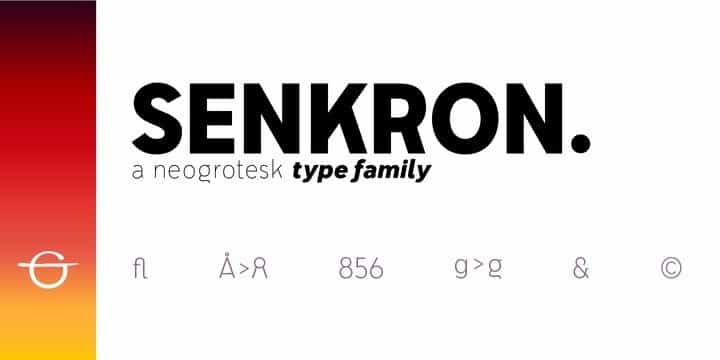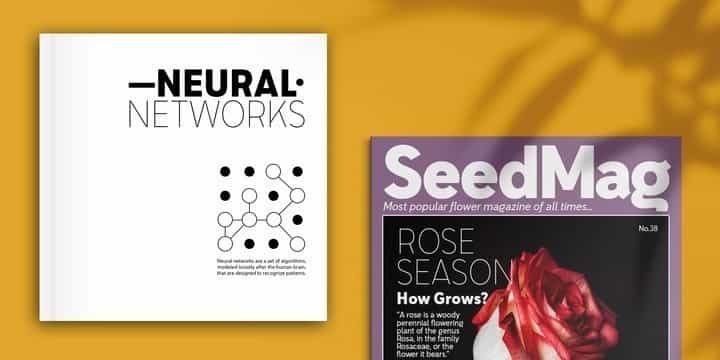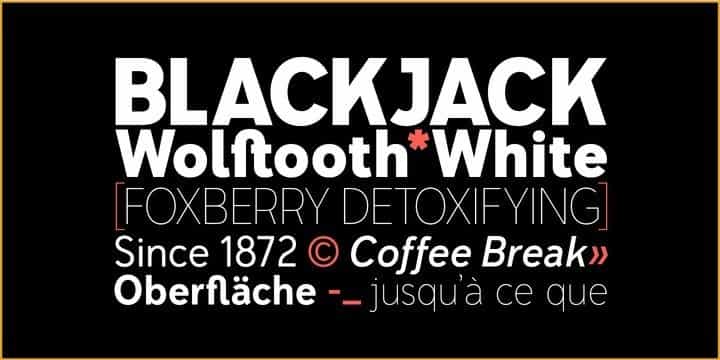
Discover Senkron Sans Font Family, part of the Sans Serif collection—a versatile and unique font perfect for adding a personal touch to your projects. Download it for free and enjoy crafting designs with style, from invitations to social media posts. This font is available exclusively for personal use, giving you the freedom to create without limits. Unlock your creativity with Senkron Sans Font Family today!
Depending on the purpose, Senkron provides the following fonts: Due to the fact that it has a contemporary design that is suitable for documents as well as layouts. The lowercase forms offer a touch for the branding and logo designing processes. It is also suitable for the body part of the texts of printed and electronic products such as books, websites, and applications.